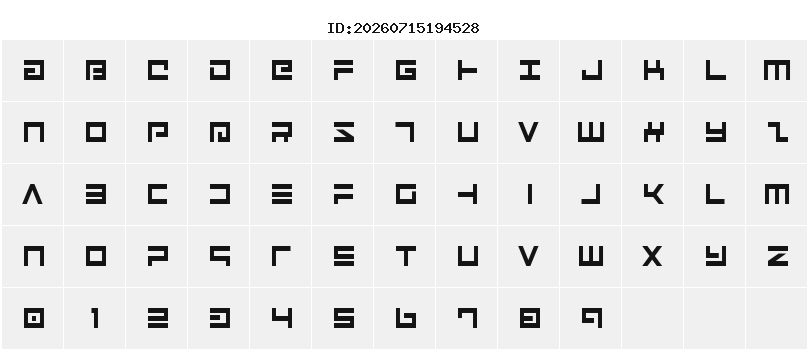
Avenger Condensed.ttf is a modern, elegant sans-serif font designed for ultimate readability and visual harmony. Perfect for branding, headlines, web design, and print materials.